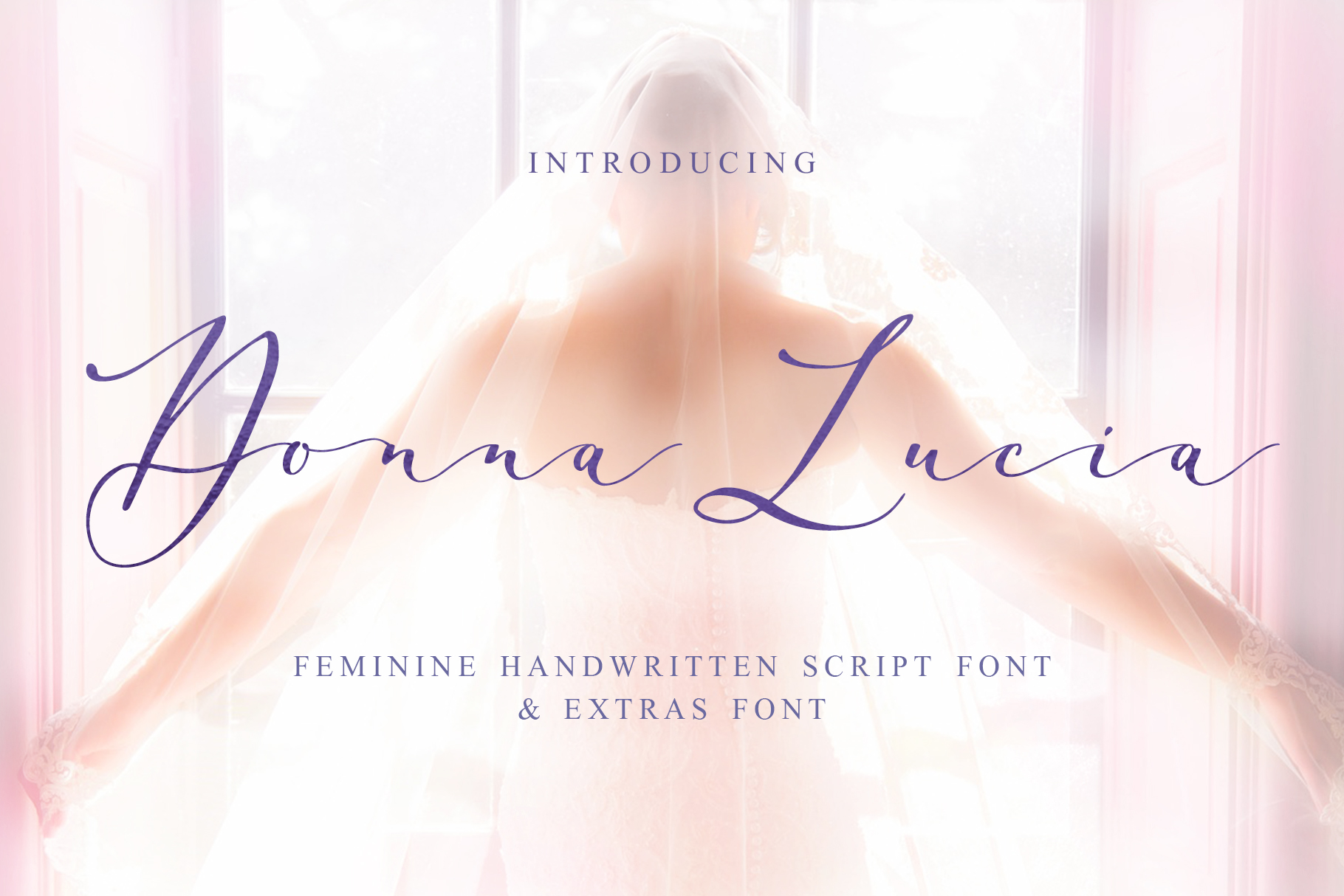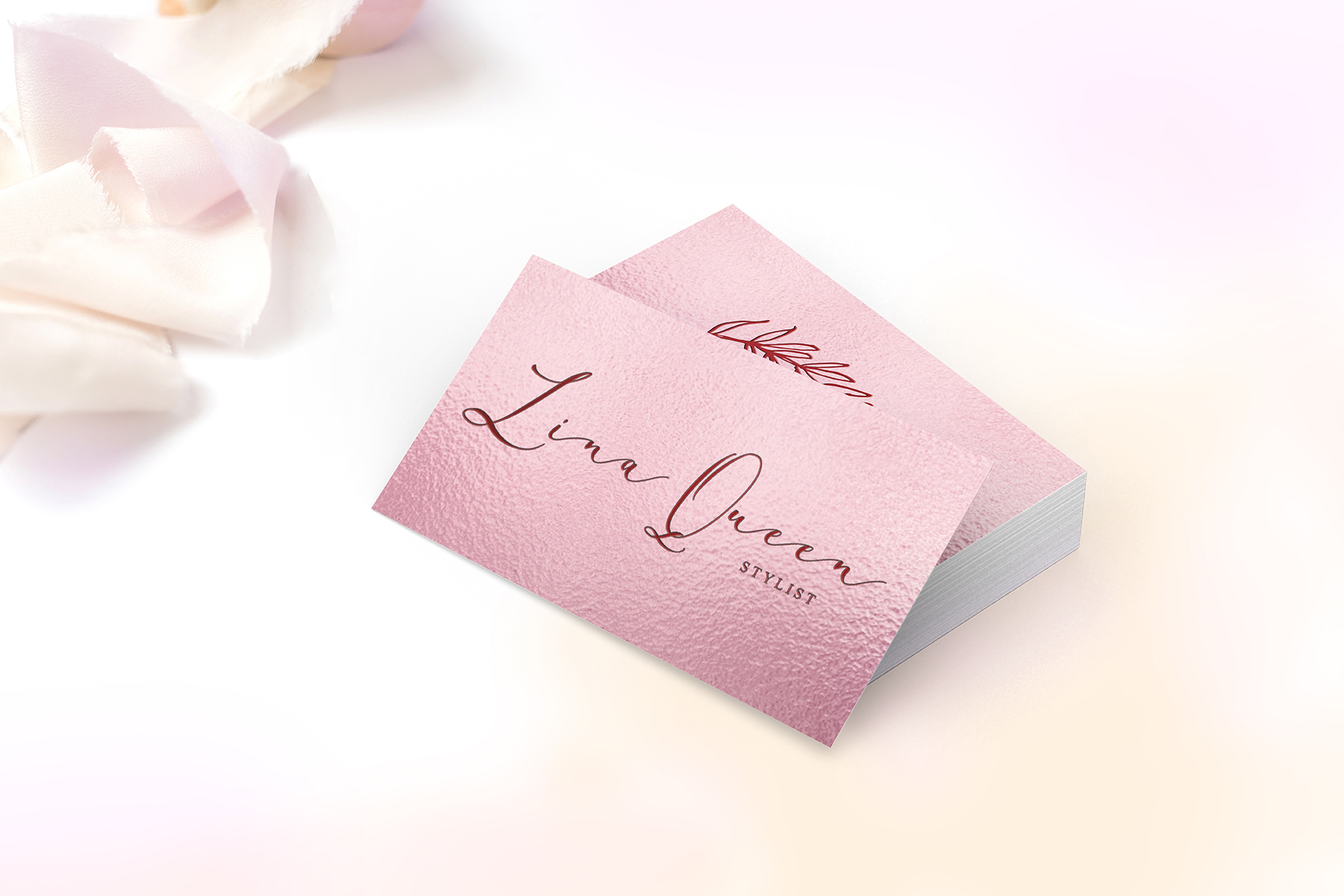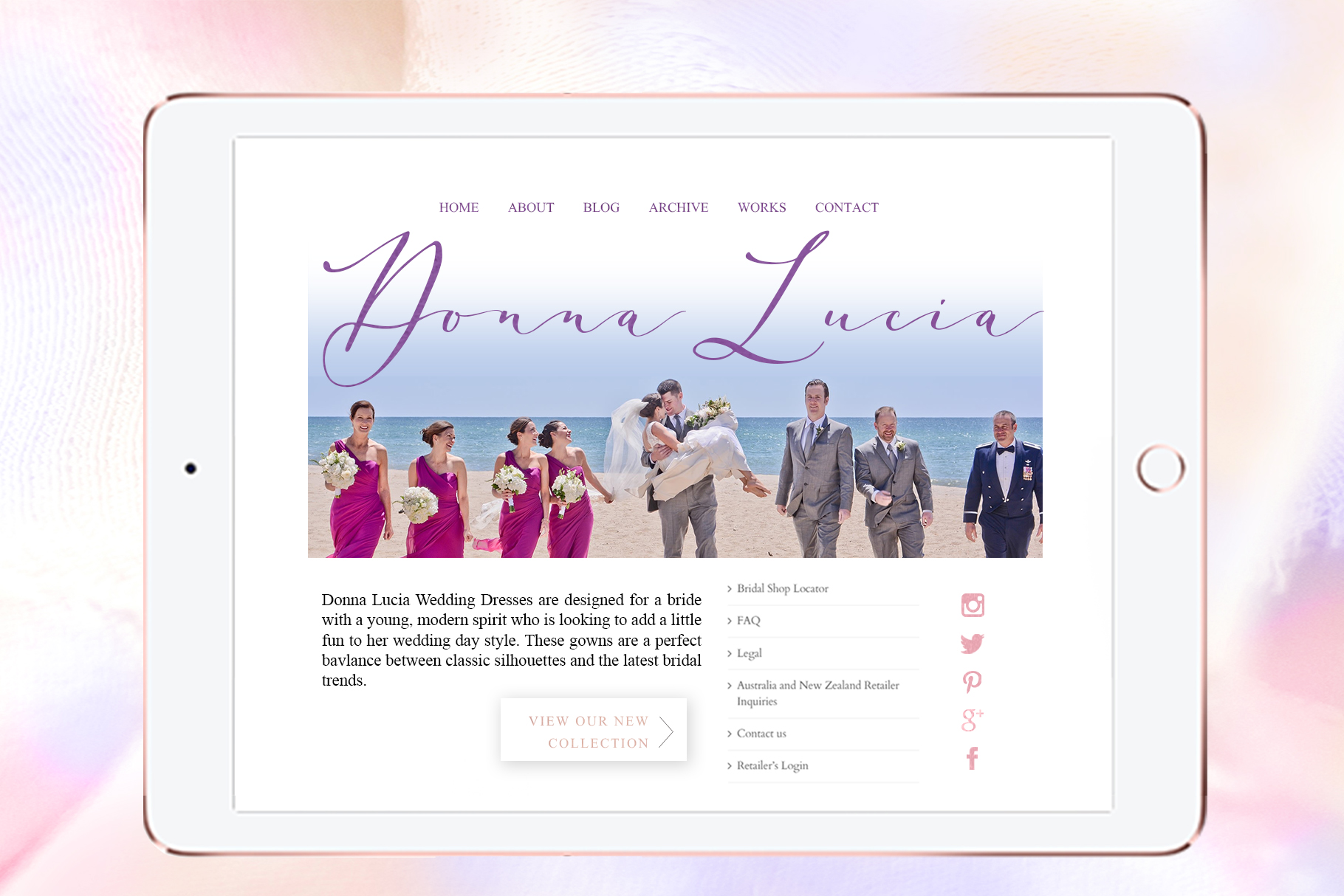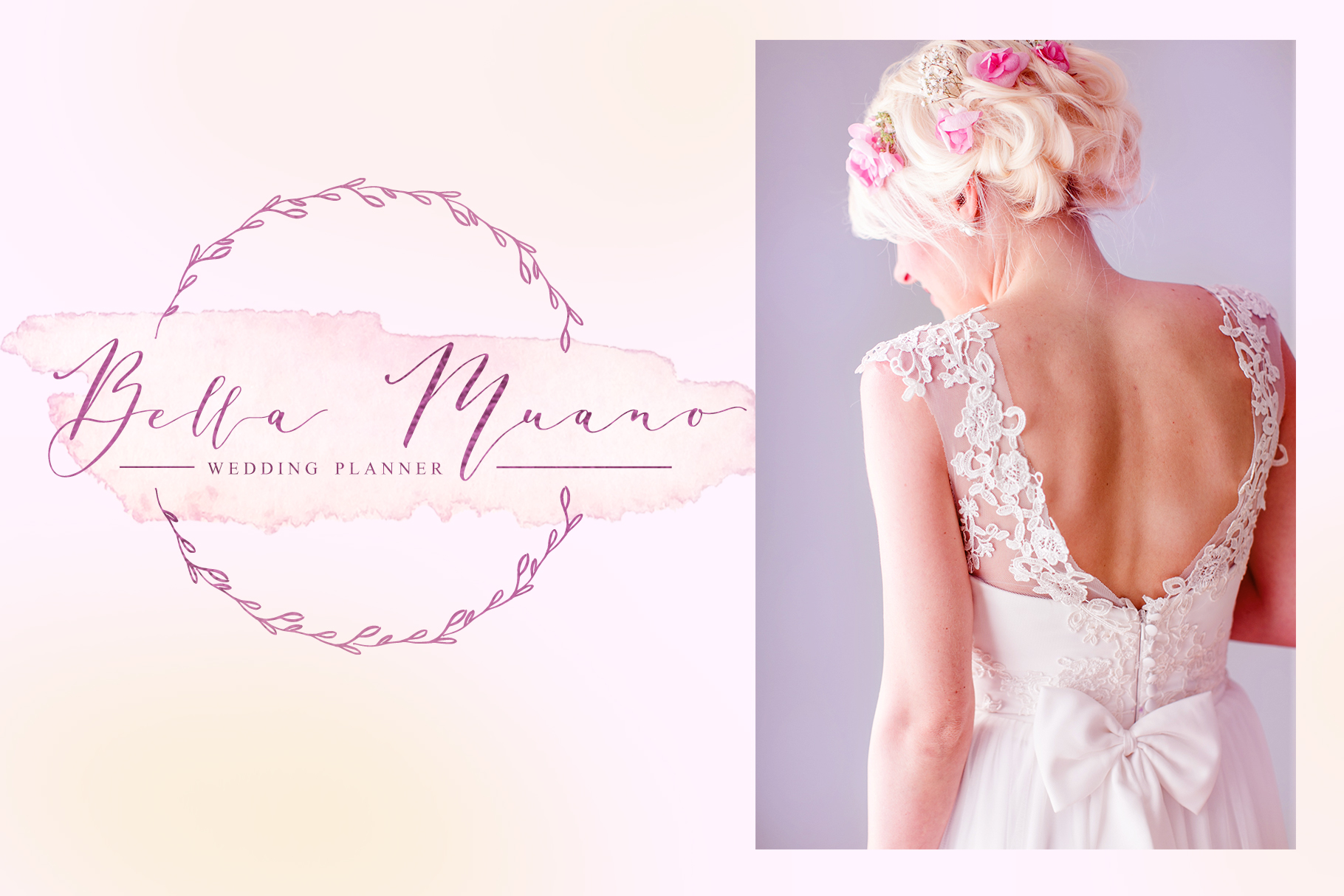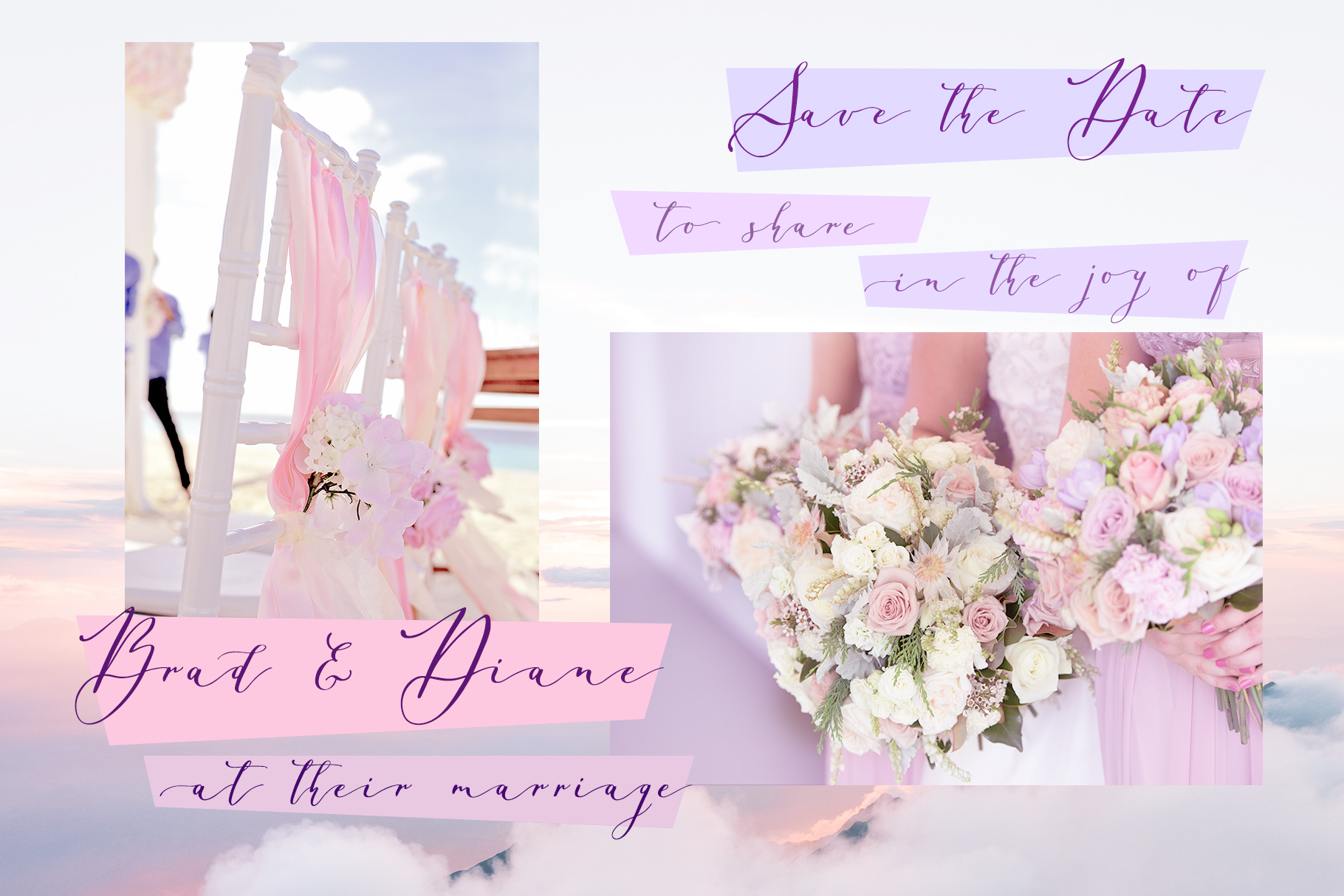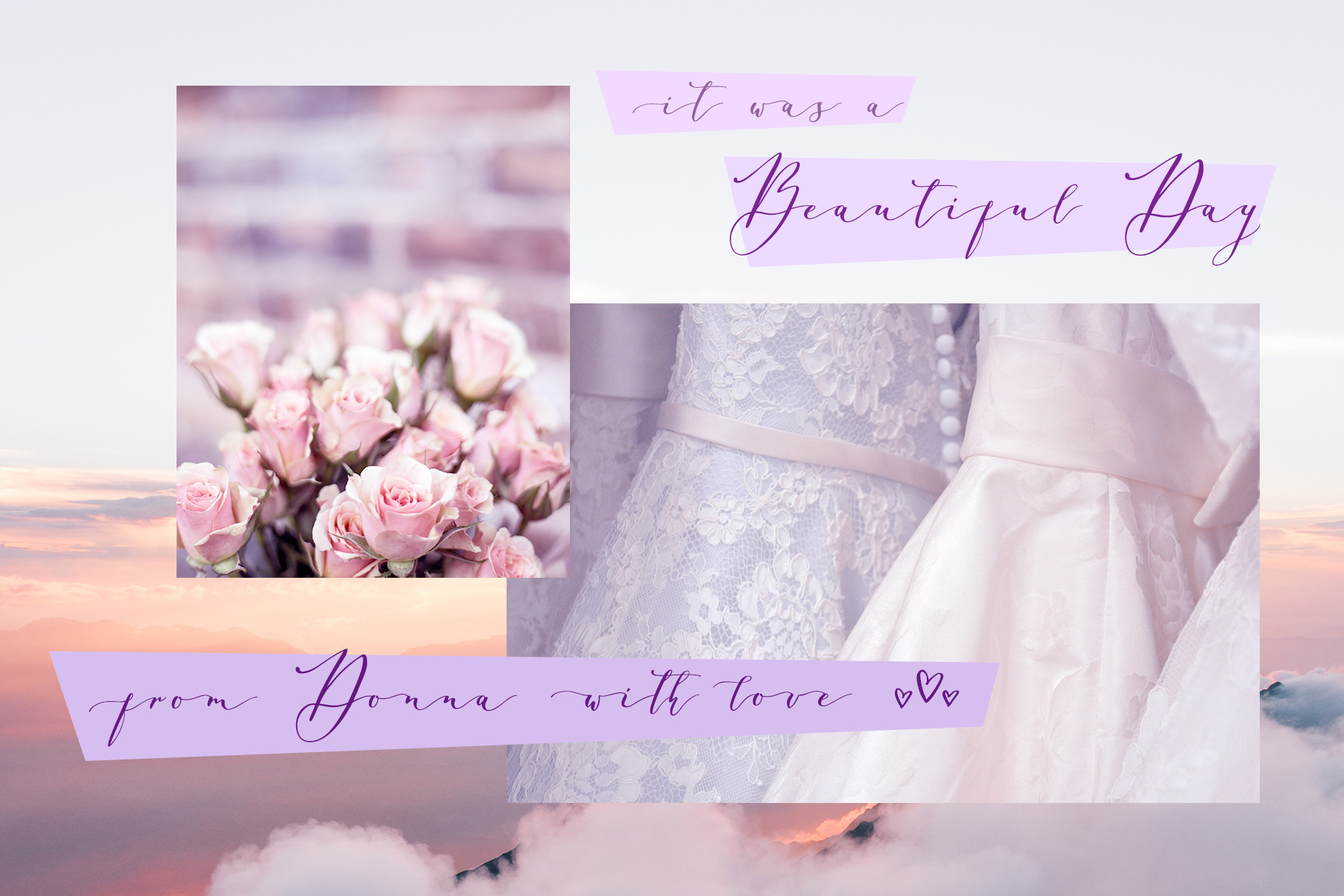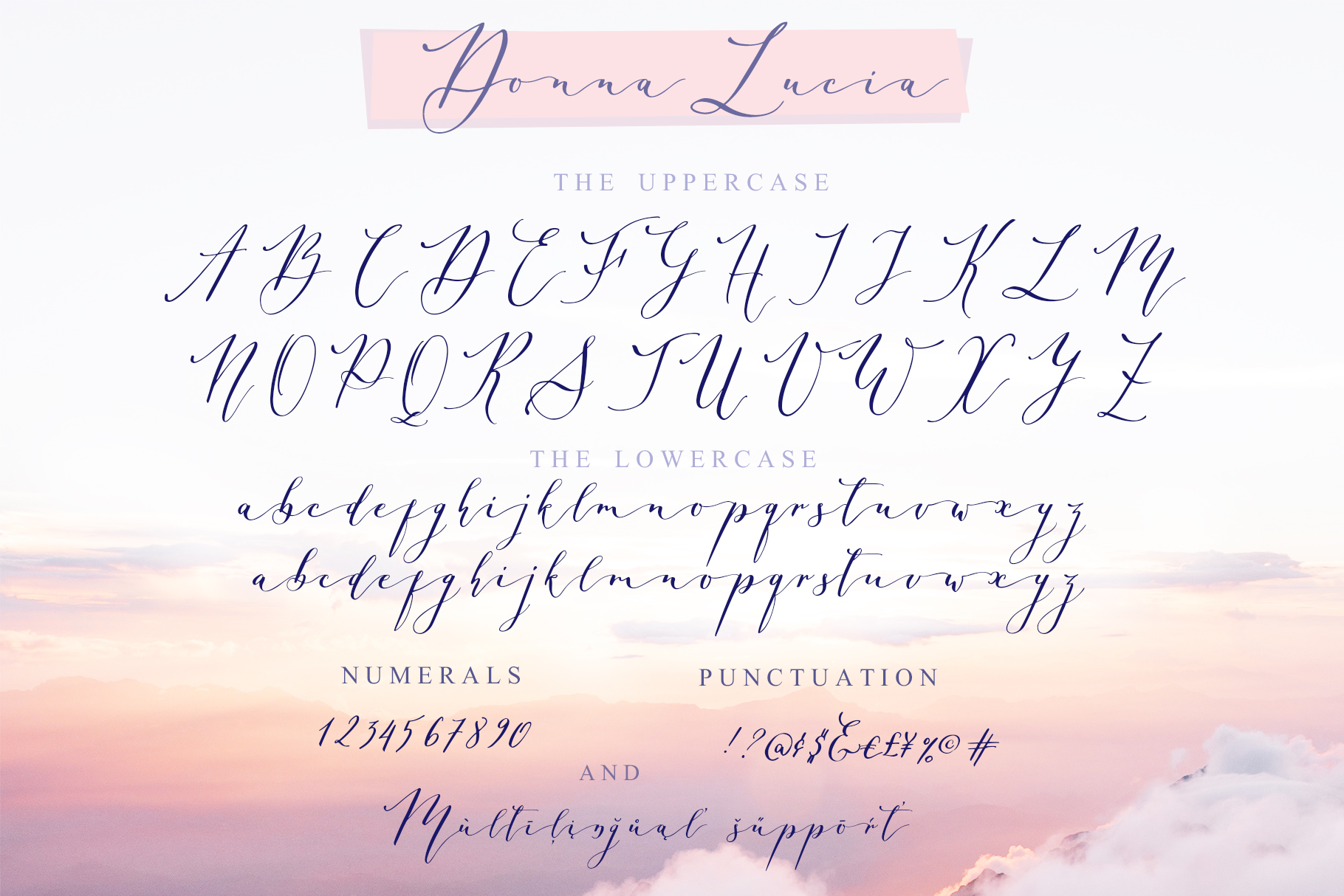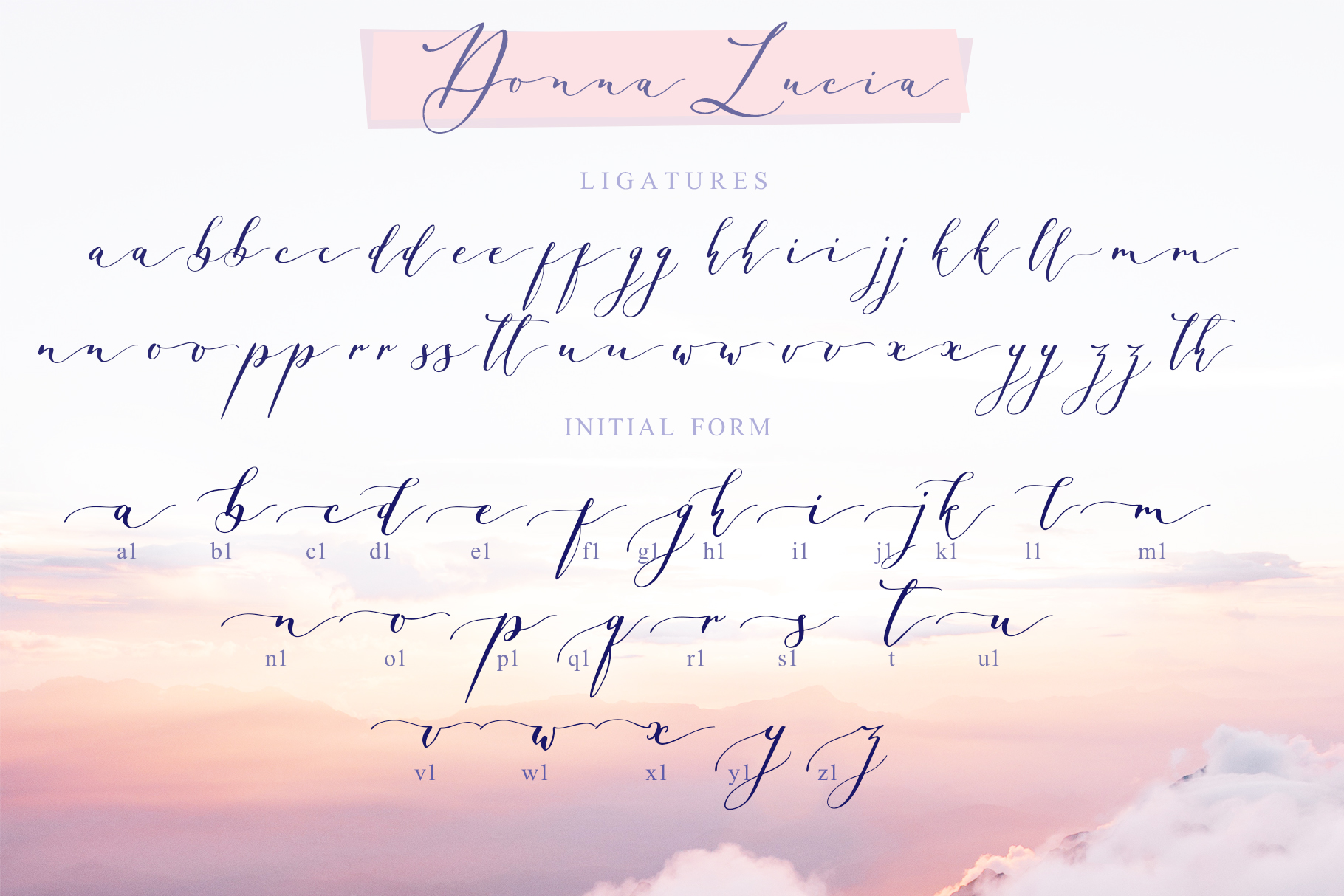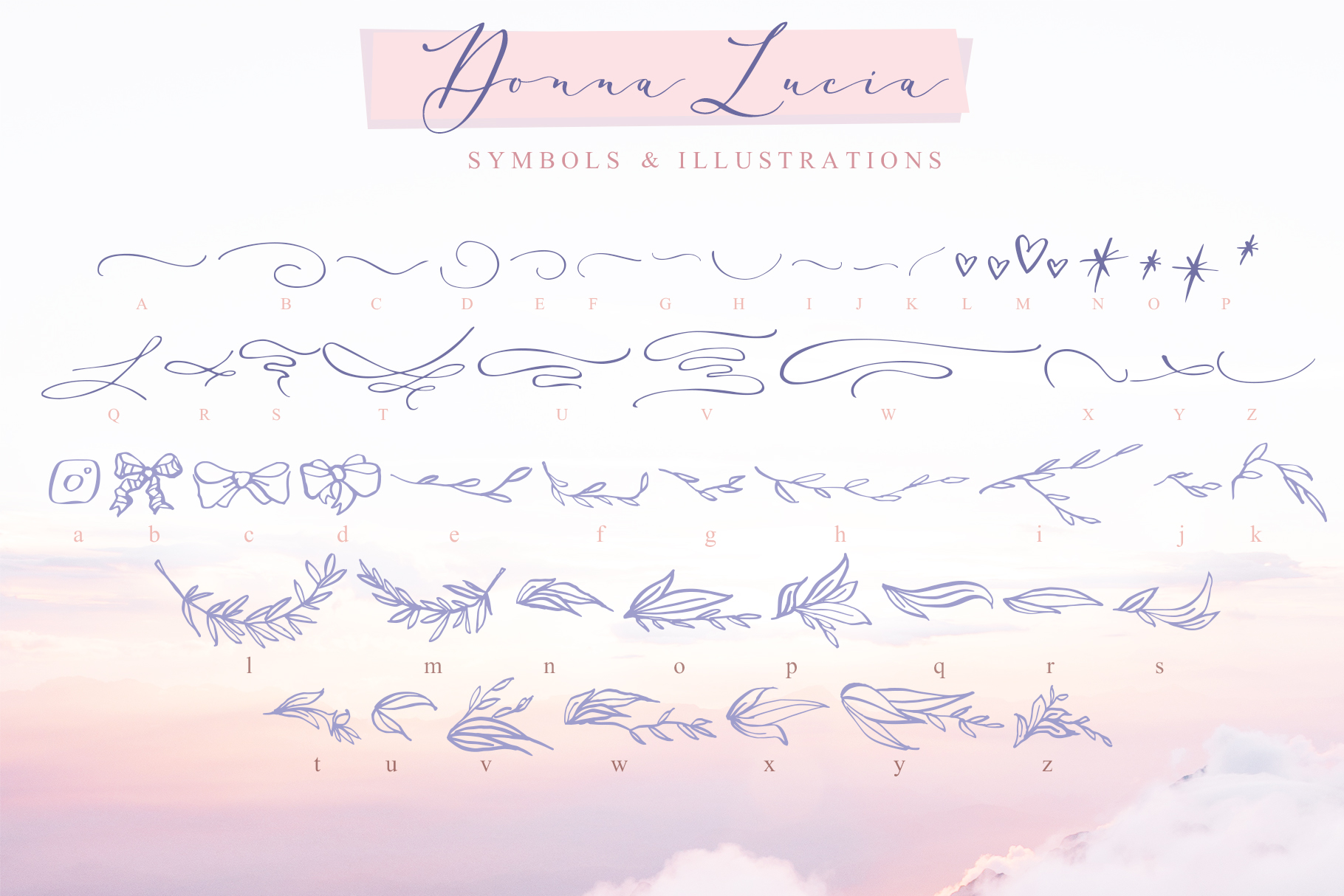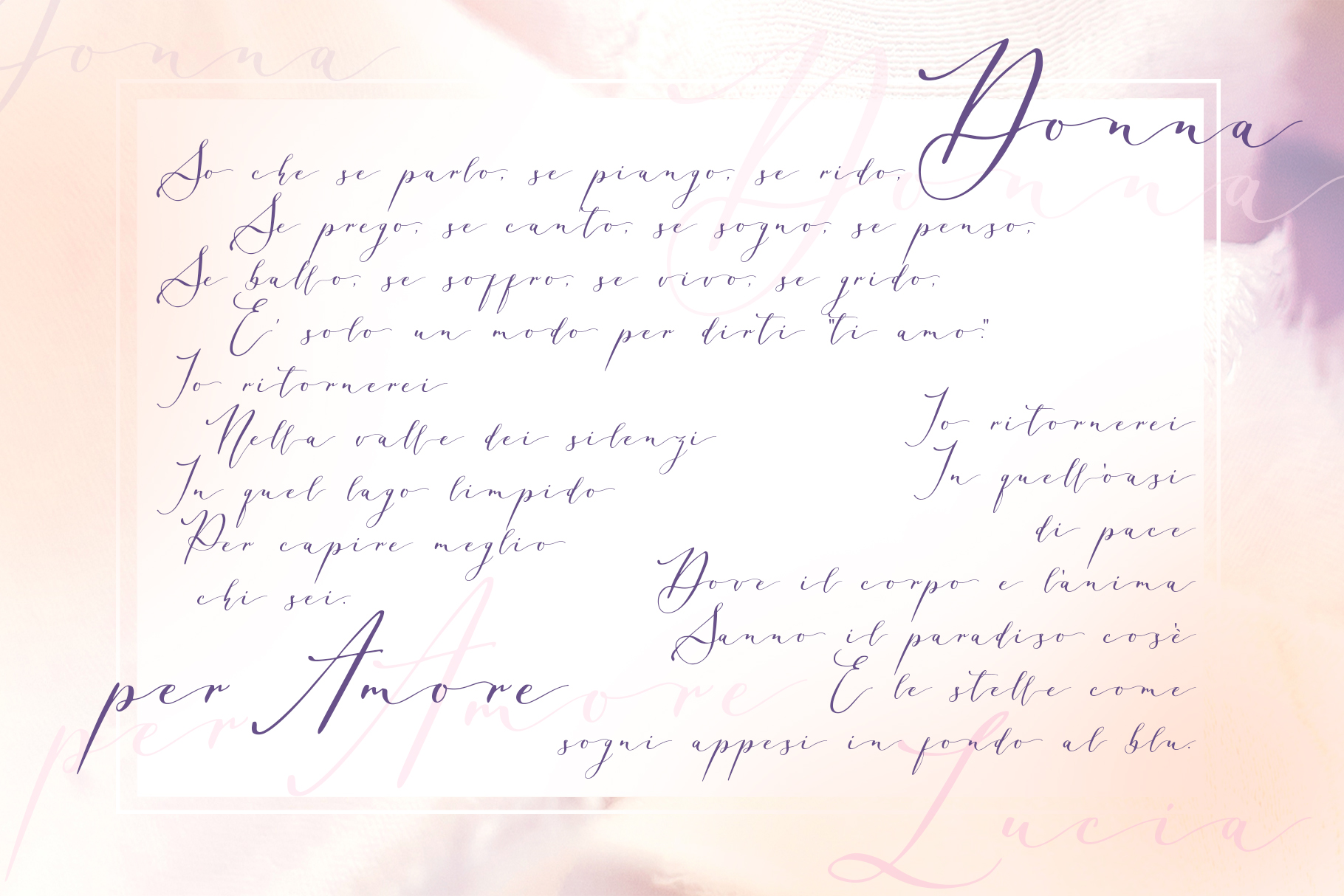
Donna Lucia Font
About Donna Lucia Font
Meet Donna Lucia: an elegant, feminine and graceful calligraphic handwritten script font that comes with tons of fun and romantic bonuses. This font is perfect for giving your special events and creative projects that incomparable ‘wow’ factor!